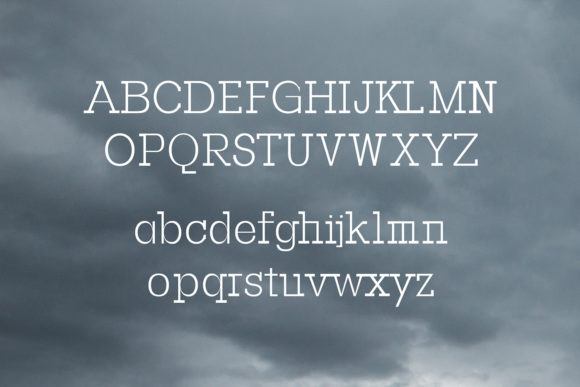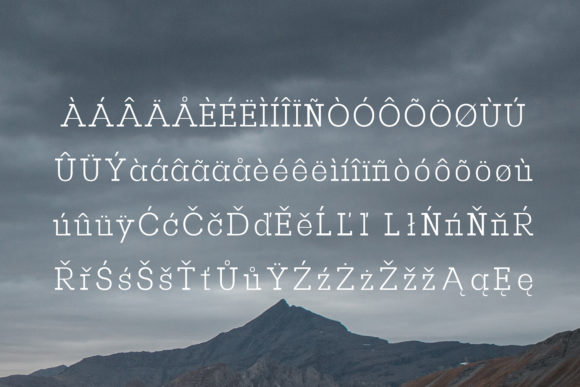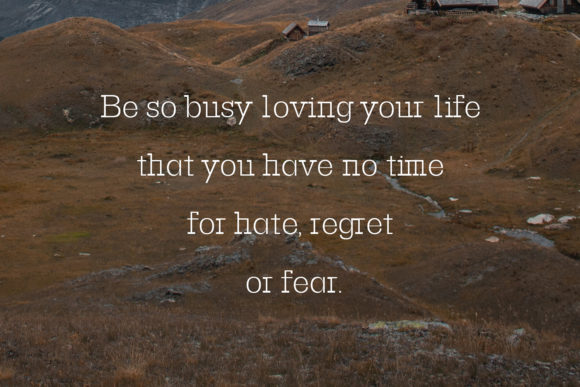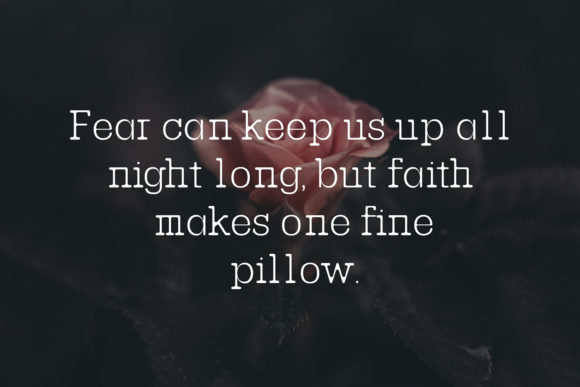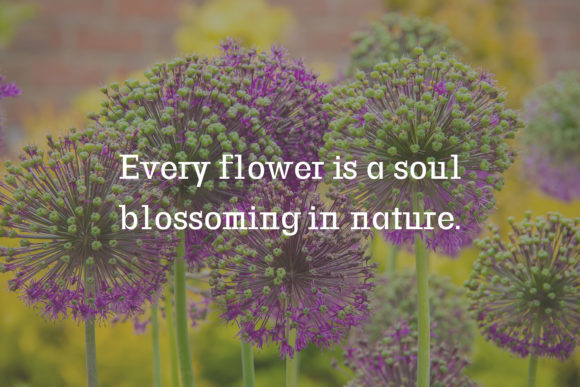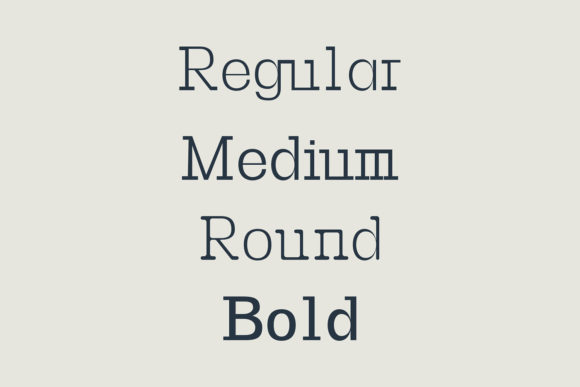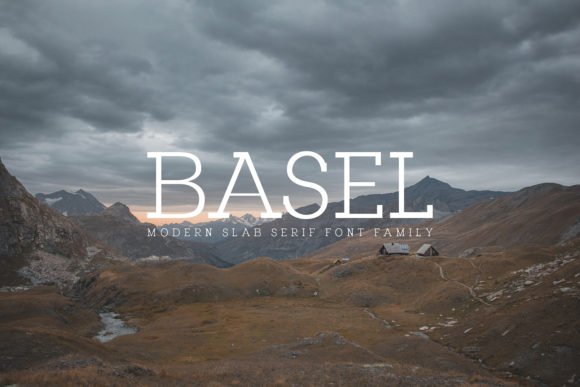
Discover the Creative Potential of Basel Family Font
Are you looking for a font that adds a touch of creativity and uniqueness to your designs? Look no further than the Basel Family Font. This fun and quirky slab serif font is sure to inspire your next project with its original look and feel. In this article, we’ll dive into the world of Basel Family Font, exploring its features, benefits, and uses, as well as provide tips on how to make the most of this versatile font.
What is Basel Family Font?
Basel Family Font is a slab serif font, characterized by its distinctive rectangular serifs. This font family is designed to bring a playful and creative vibe to your designs, making it perfect for a wide range of projects, from branding and advertising to packaging and digital media. With its unique look and feel, Basel Family Font is sure to stand out from the crowd.
Key Features of Basel Family Font
• Unique Slab Serif Design: Basel Family Font boasts a distinctive slab serif design that adds a touch of personality to your text.
• Creative Feel: This font is designed to inspire creativity and playfulness, making it perfect for designers and crafters looking to add a unique touch to their work.
• Versatile: Basel Family Font can be used for a wide range of projects, from digital media to print materials.
• Easy to Read: Despite its creative design, Basel Family Font remains highly legible, making it perfect for body text and headlines.
Benefits of Using Basel Family Font
So, why choose Basel Family Font for your next project? Here are just a few benefits of using this versatile font:
• Adds Personality to Your Designs: With its unique slab serif design, Basel Family Font adds a touch of personality to your text, helping your designs stand out from the crowd.
• Enhances Creativity: This font is designed to inspire creativity and playfulness, making it perfect for designers and crafters looking to push the boundaries of their work.
• Versatile and Adaptable: Basel Family Font can be used for a wide range of projects, from digital media to print materials, making it a valuable addition to your font library.
Uses of Basel Family Font
So, what can you use Basel Family Font for? The possibilities are endless! Here are a few ideas to get you started:
• Branding and Advertising: Use Basel Family Font to add a touch of personality to your brand’s identity and advertising materials.
• Packaging Design: This font is perfect for packaging design, adding a creative and playful touch to your product labels and packaging.
• Digital Media: Use Basel Family Font in your digital media projects, such as social media graphics, blog posts, and website designs.
• Crafting and DIY Projects: This font is also perfect for crafters and DIY enthusiasts, adding a unique touch to handmade cards, scrapbooking, and other paper crafts.
Tips for Using Basel Family Font
To make the most of Basel Family Font, here are a few tips to keep in mind:
• Experiment with Different Sizes: Basel Family Font looks great in a variety of sizes, from large headlines to smaller body text.
• Pair with Other Fonts: Try pairing Basel Family Font with other fonts to create a unique and eye-catching combination.
• Use for Emphasis: Use Basel Family Font to add emphasis to important text, such as headlines and calls-to-action.
In conclusion, Basel Family Font is a fun and unique slab serif font that adds a touch of creativity and playfulness to your designs. With its distinctive design, versatility, and ease of use, this font is perfect for designers and crafters looking to take their work to the next level. Whether you’re working on a branding project, packaging design, or digital media, Basel Family Font is sure to inspire your next creation.